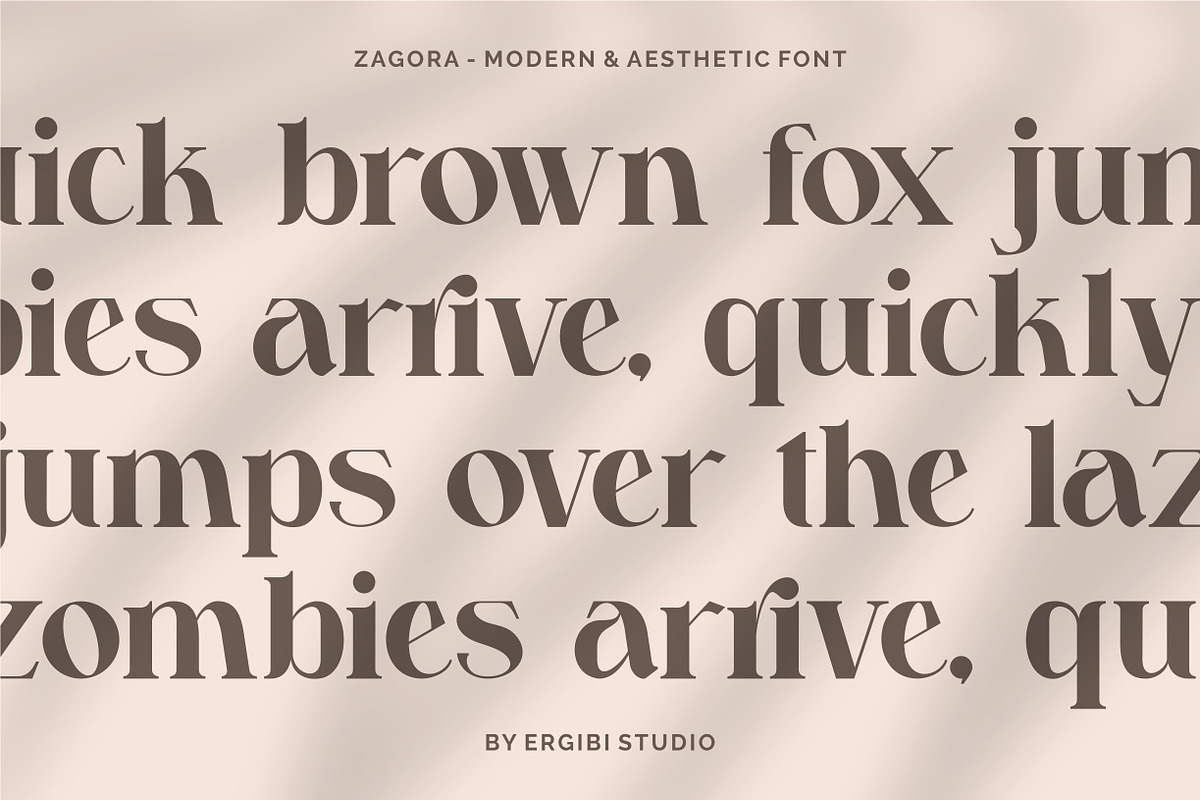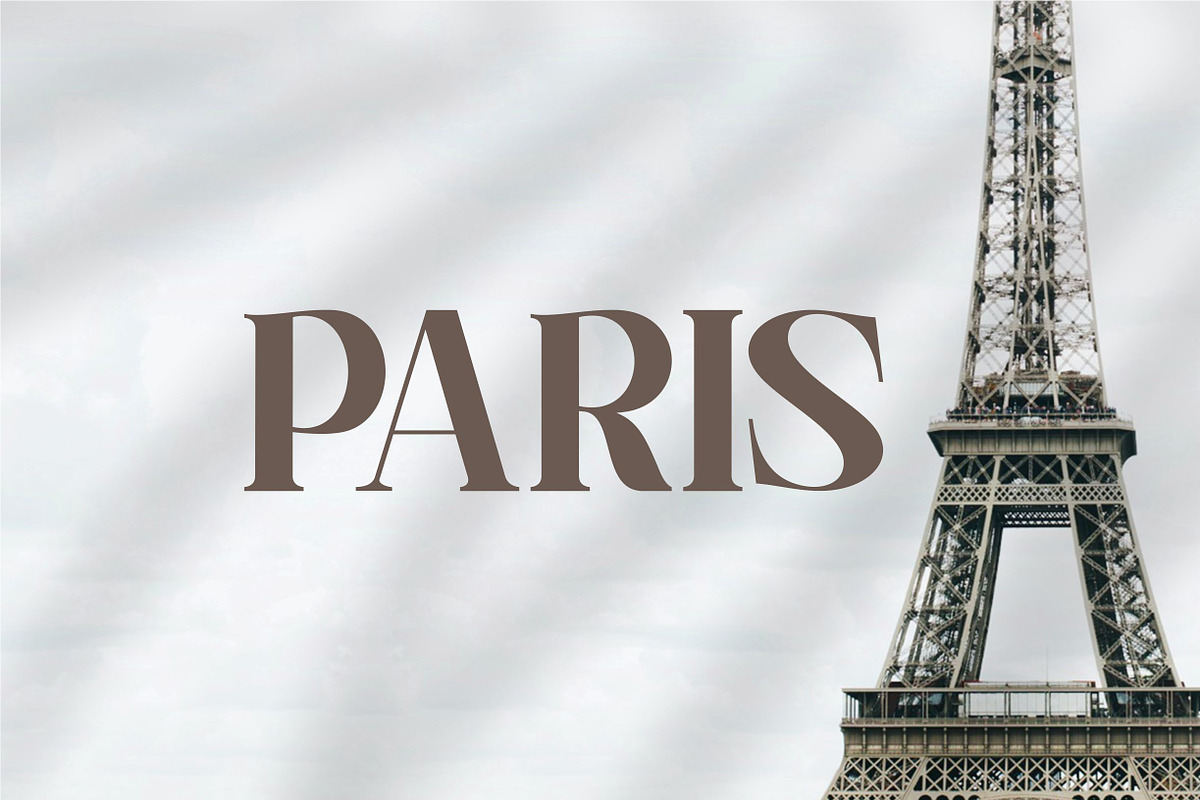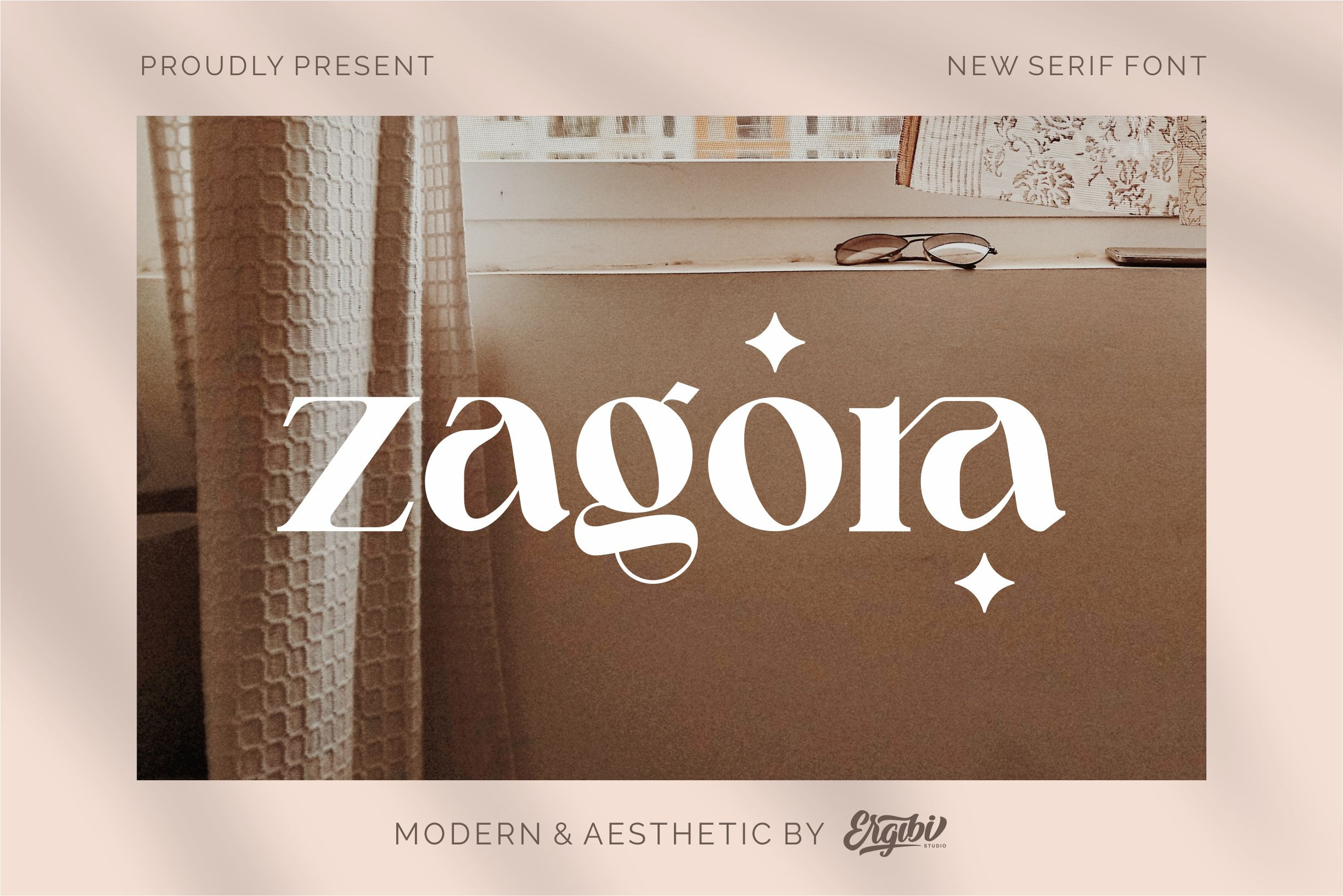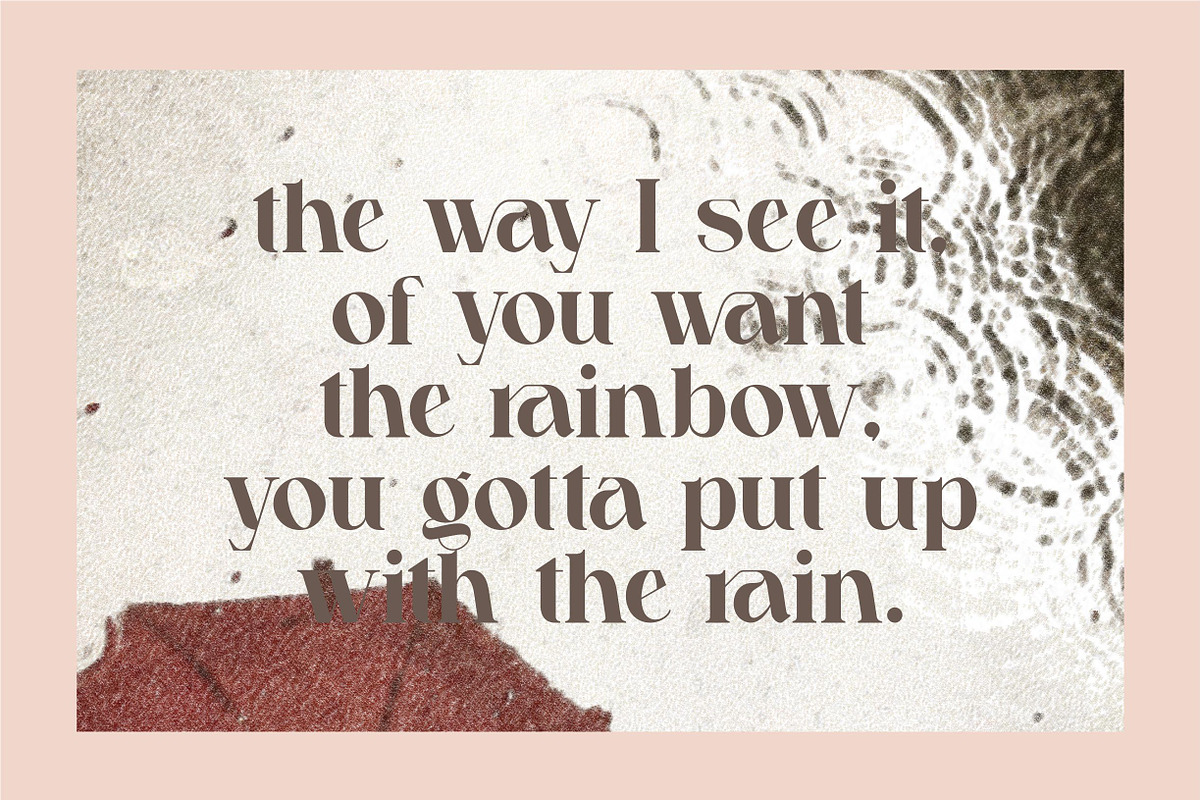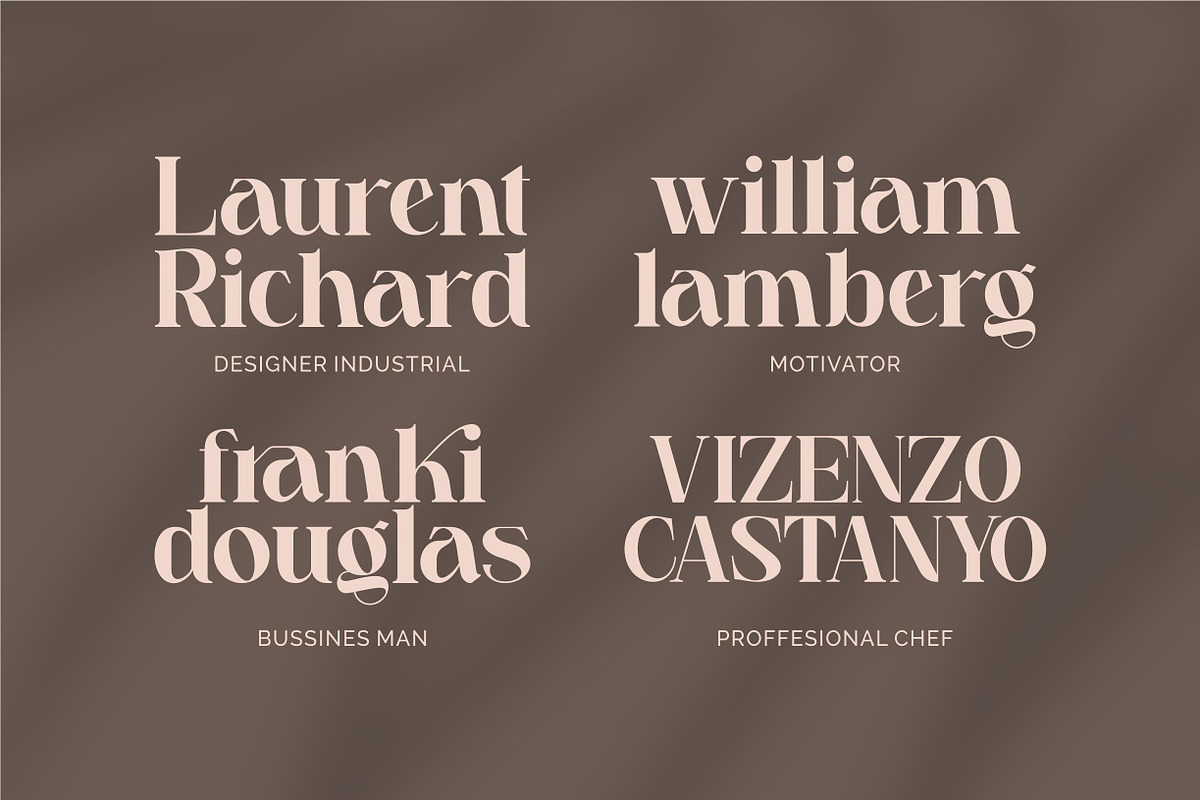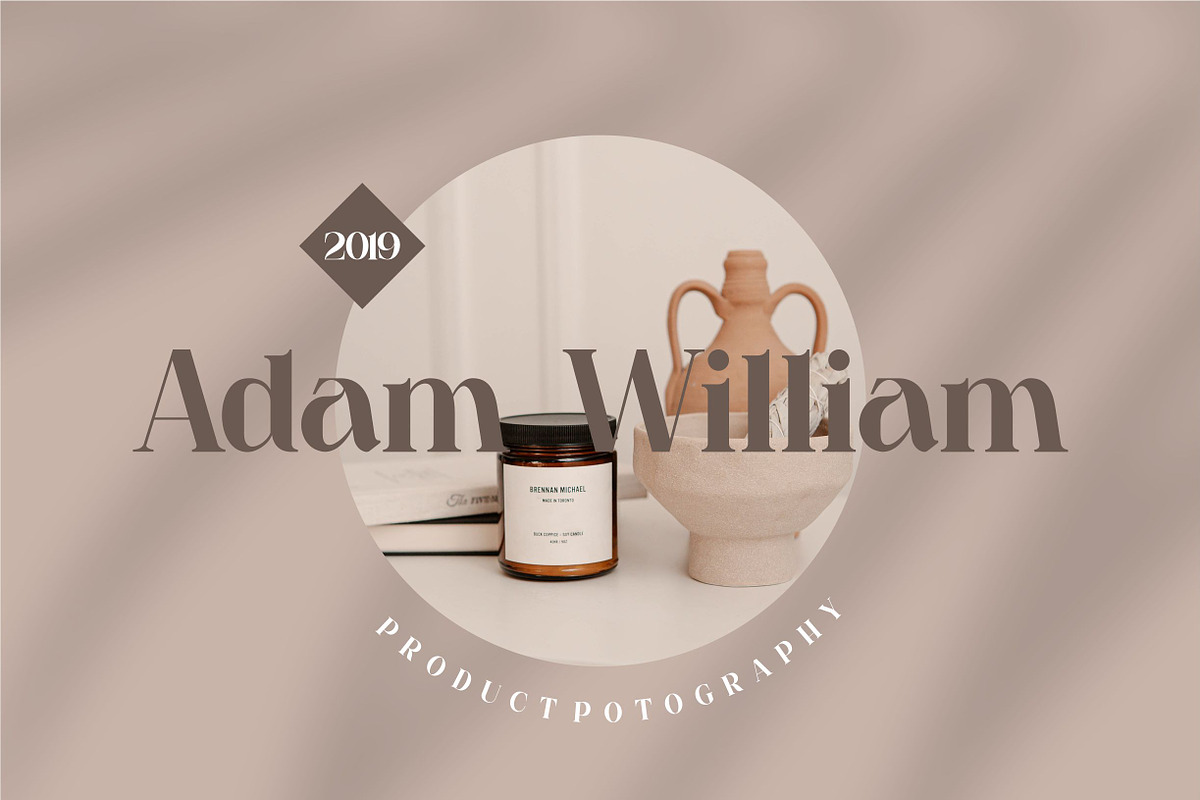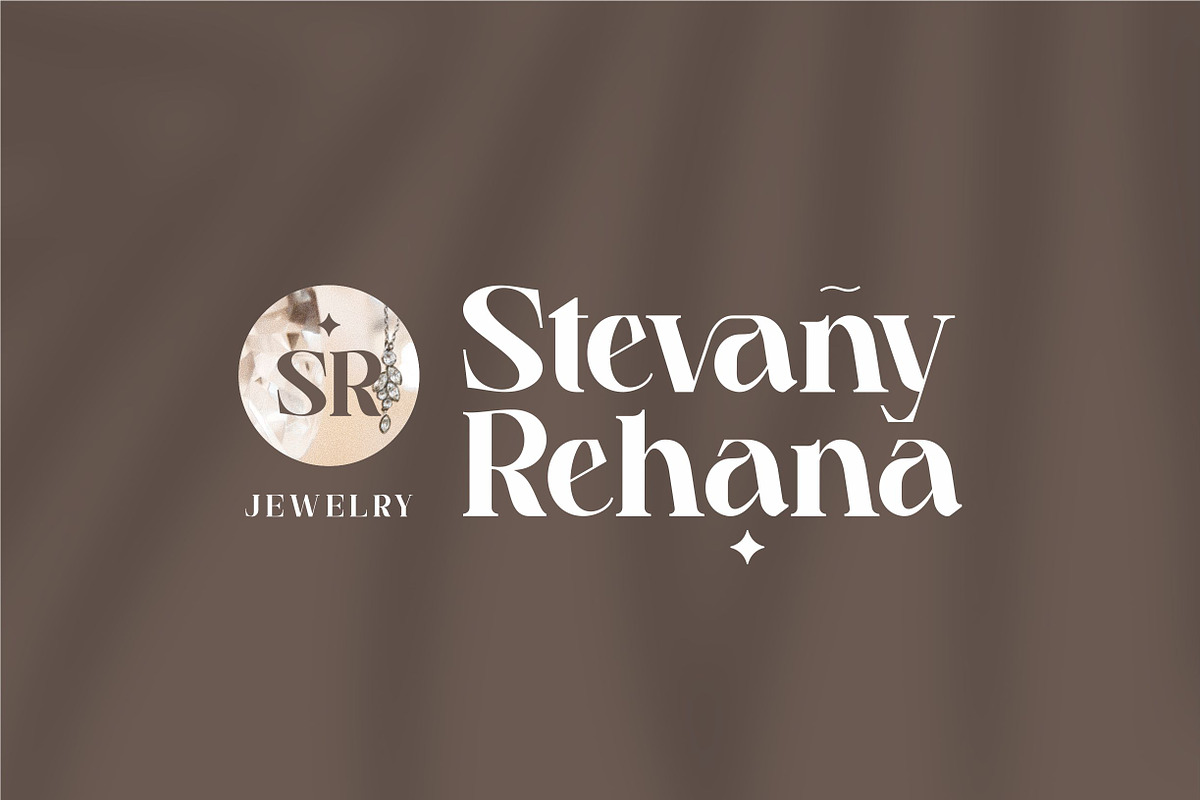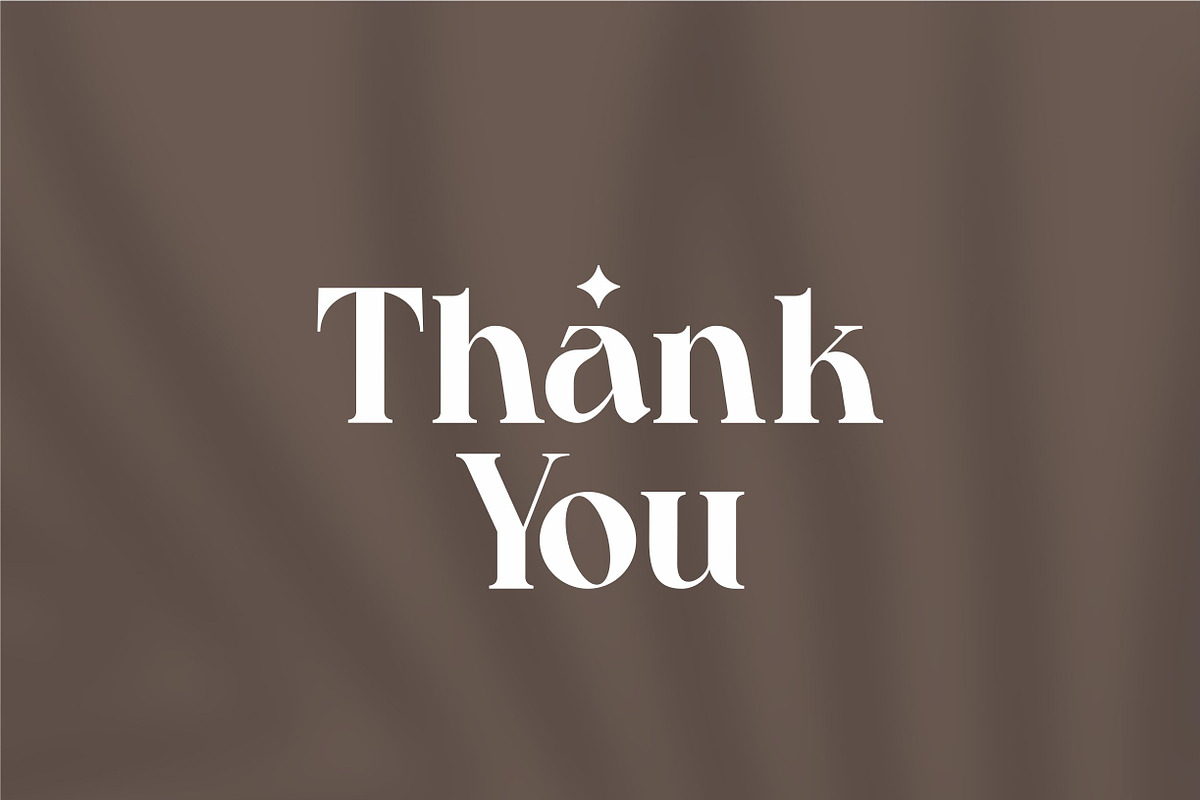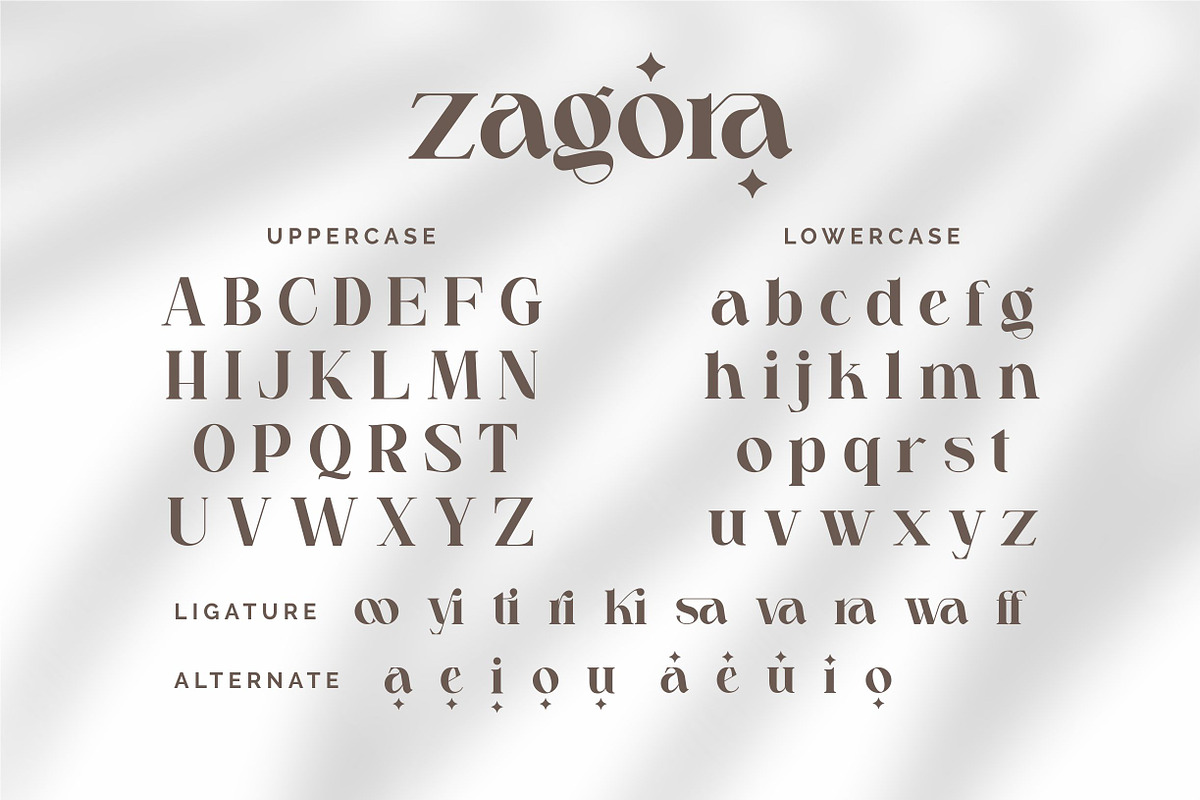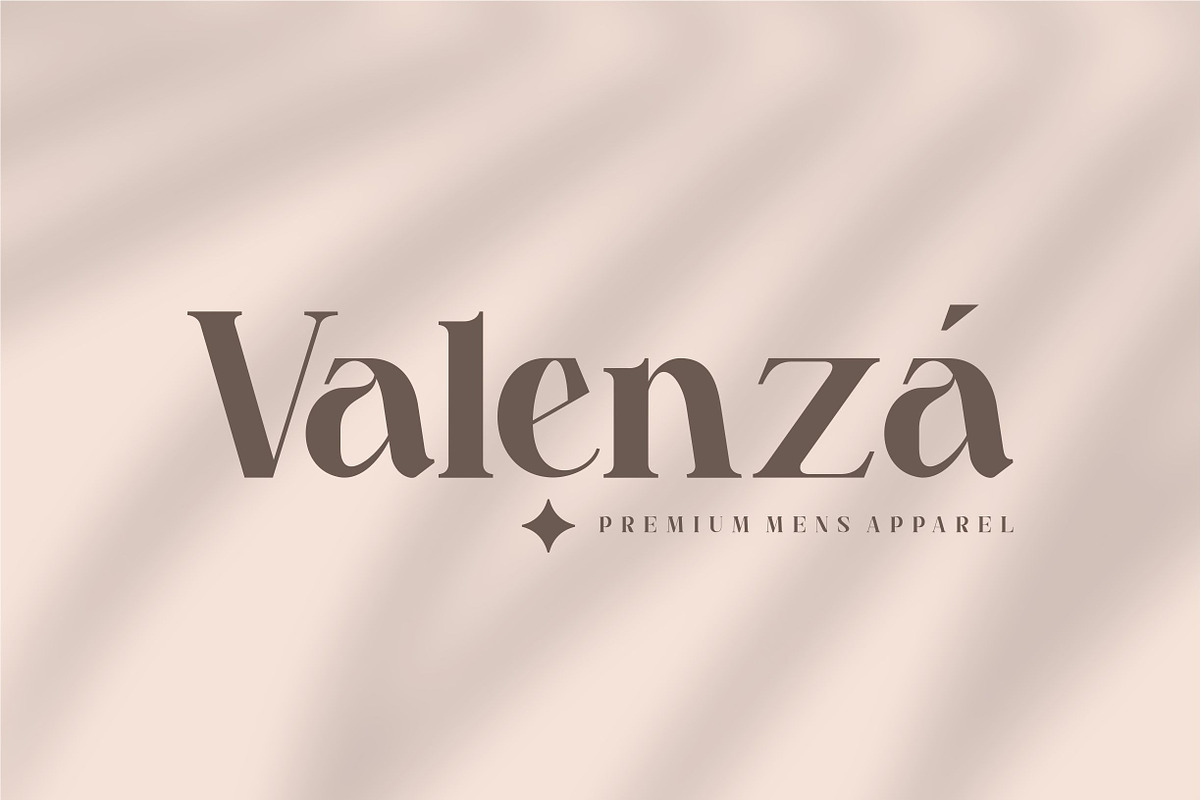
Zagora - Modern Font
Zagora is a modern and aesthetic font. The simple shape makes Zagora appearance so perfect for branding projects, logo, wedding designs, social media posts, advertisements, product packaging, product designs, label, photography, watermark, invitation, stationery and any projects that need simple and modern taste.
Zagora comes with an uppercase, lowercase, Numeral, Punctuation, Ligature, and also Support Multi Language.